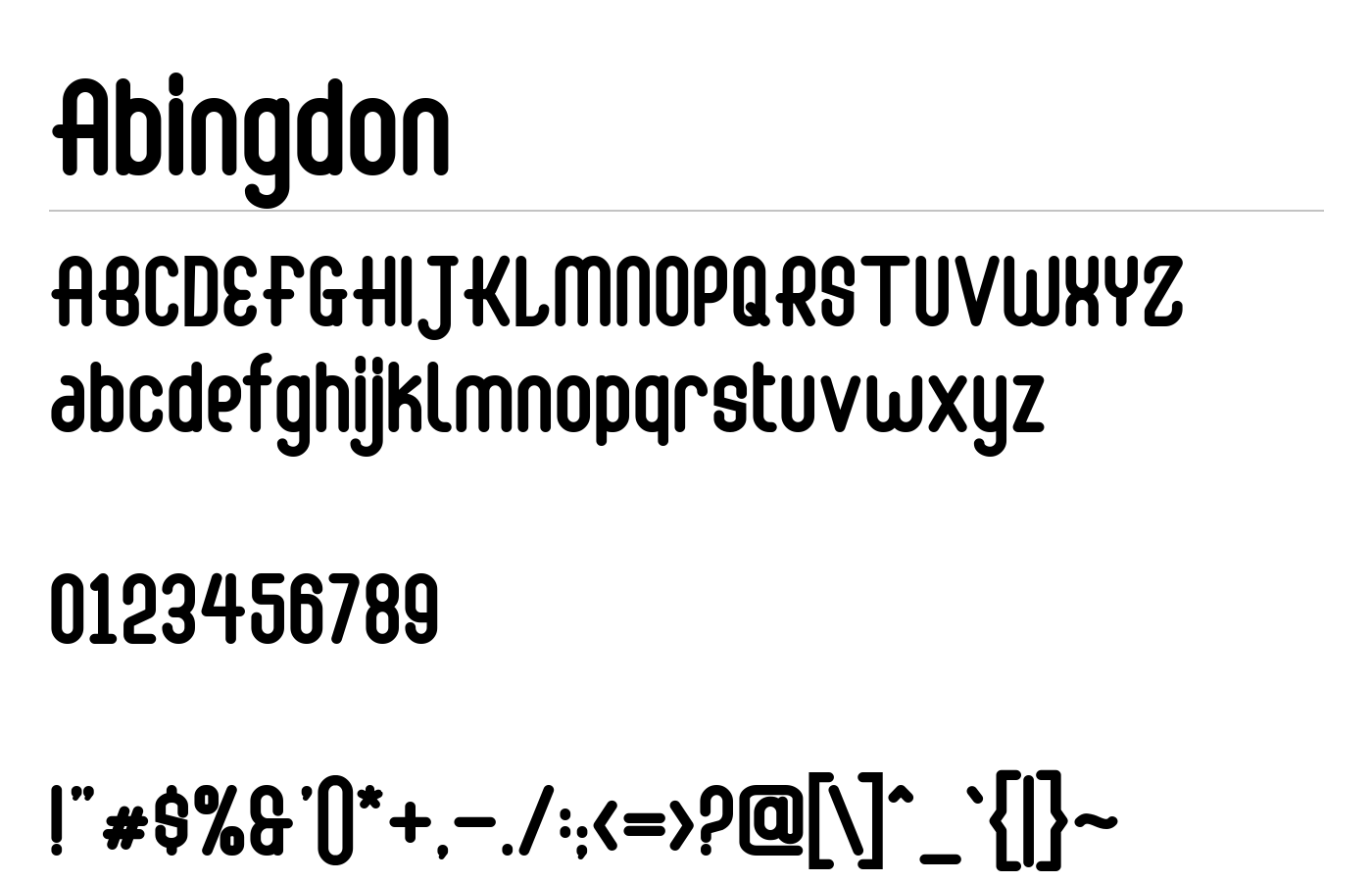
Abingdon is a condensed sans serif font with a playful yet modern personality, featuring rounded terminals and consistent stroke weight that create a friendly and approachable look. Its tall x-height and clean, geometric shapes make it highly legible, perfect for headlines, logos, and branding that aim to be both contemporary and inviting. This font works well in creative and casual contexts where a bold but warm impression is desired.
Abingdon Font
About Abingdon Font